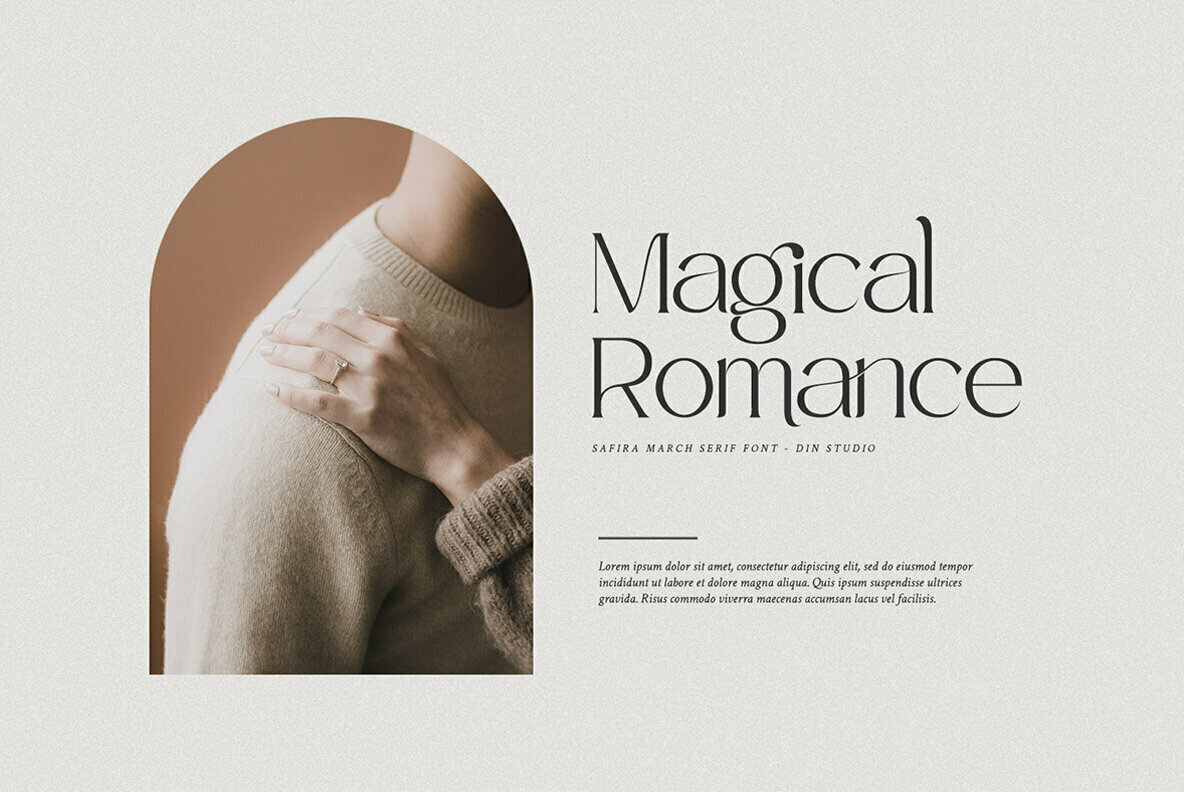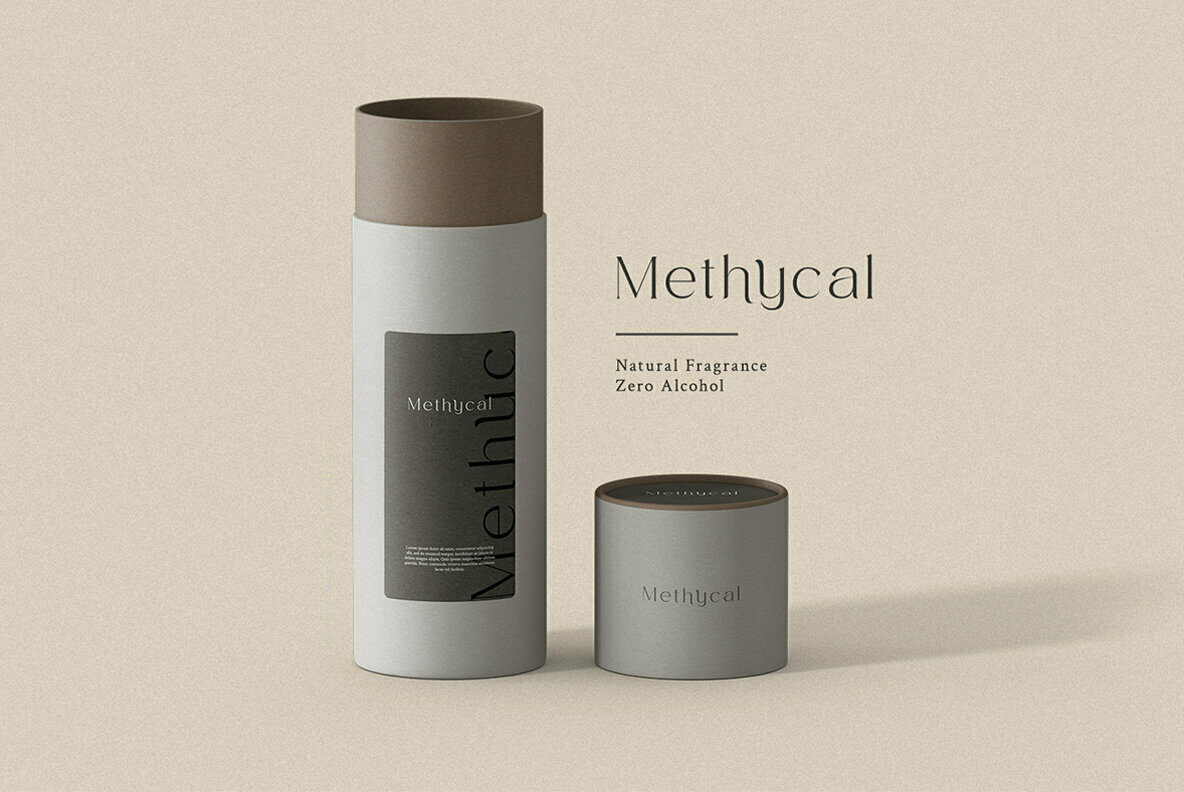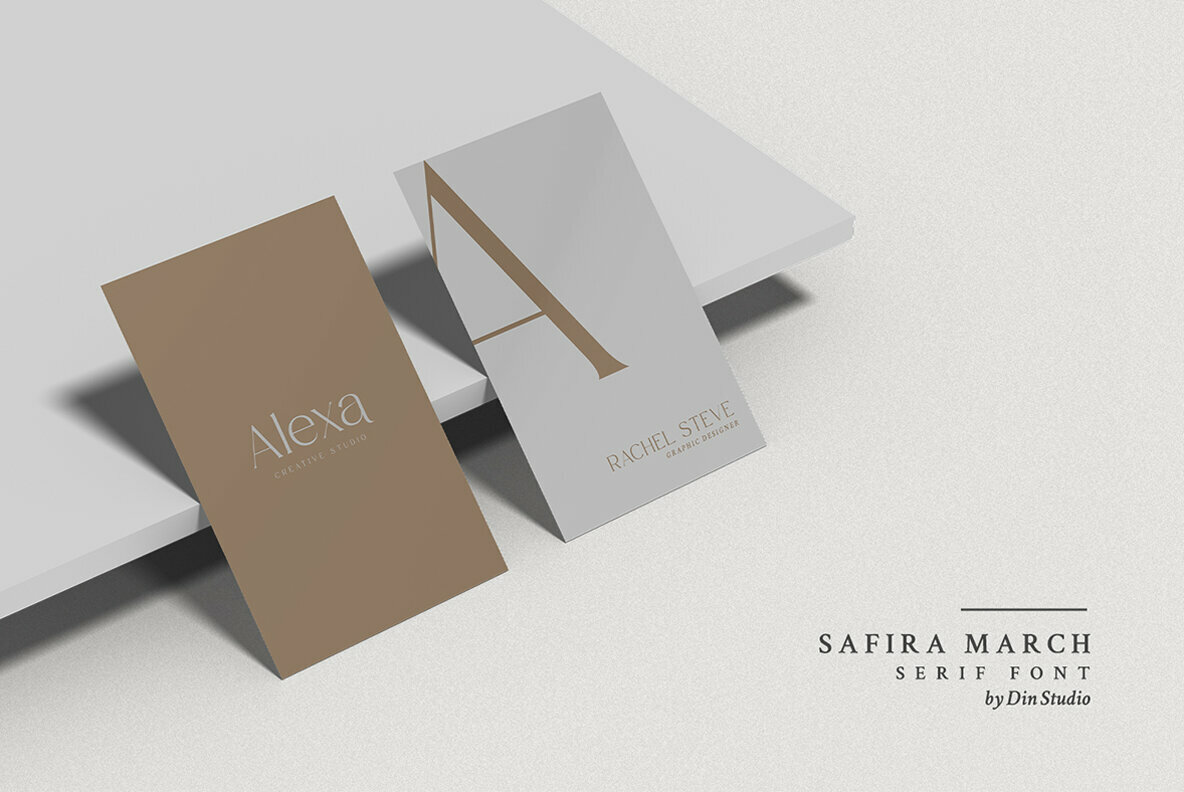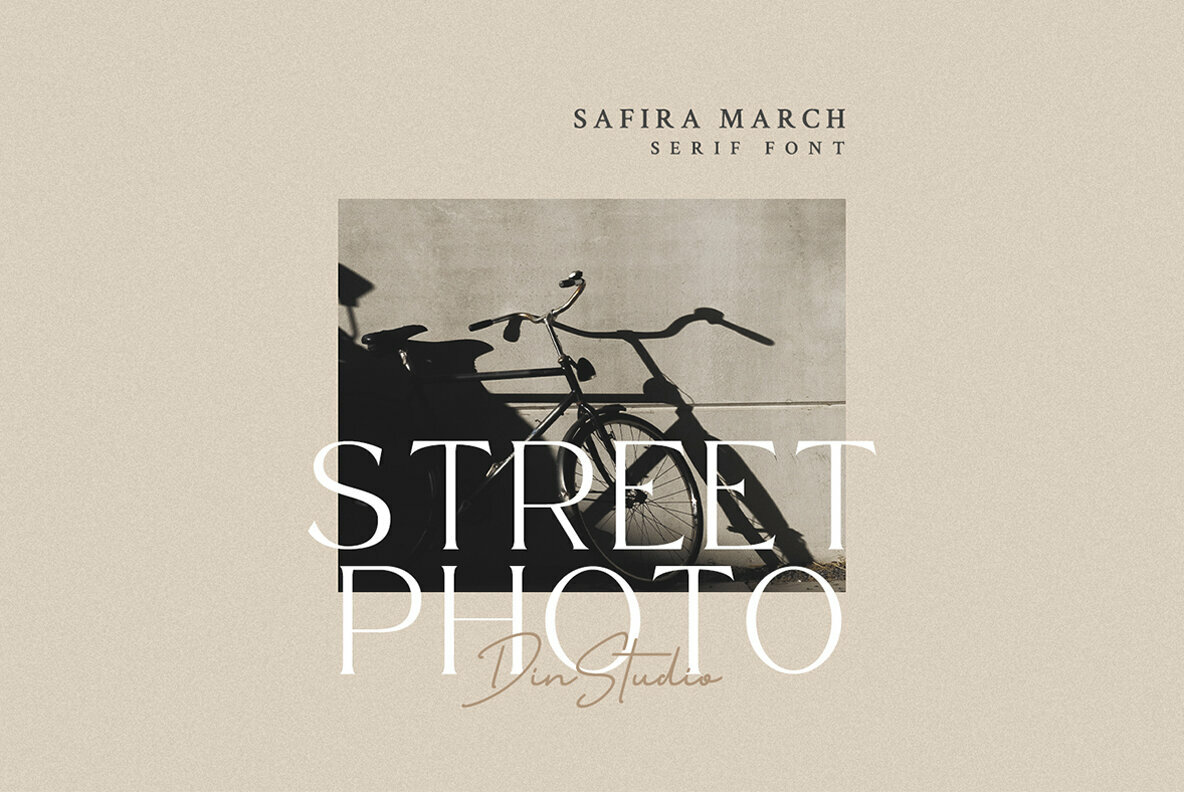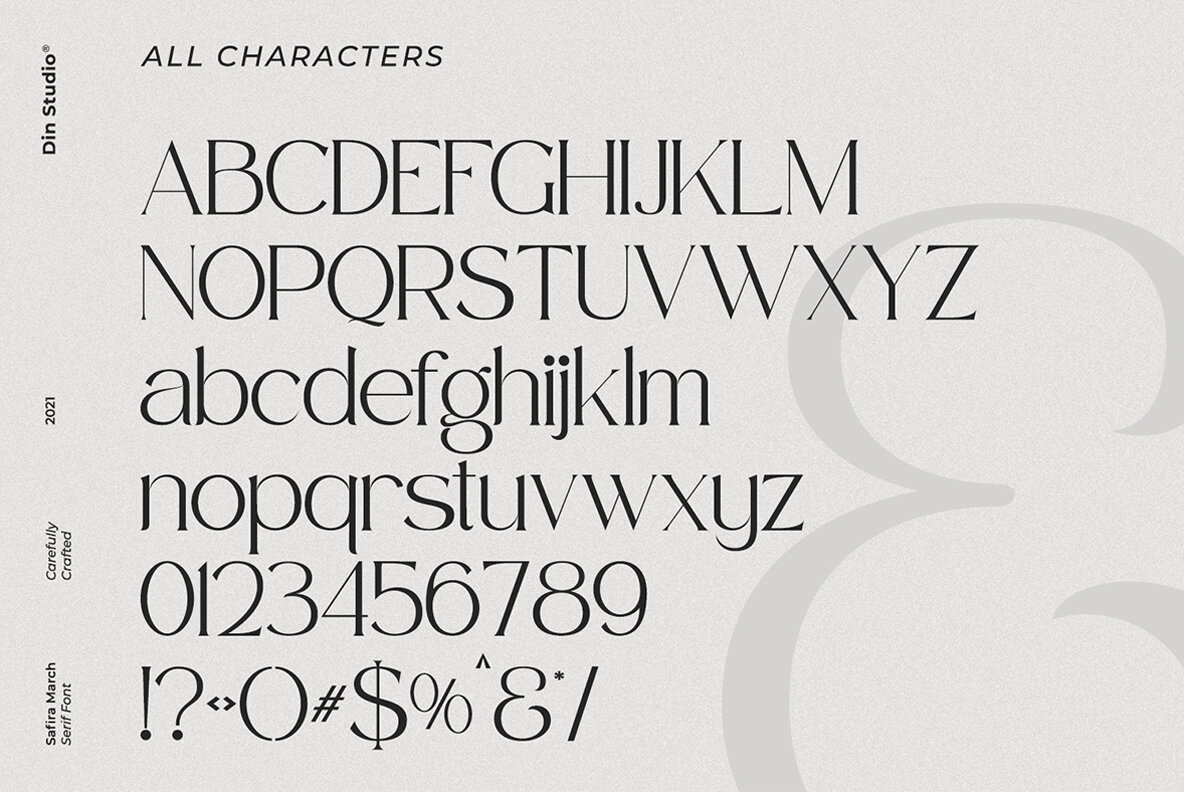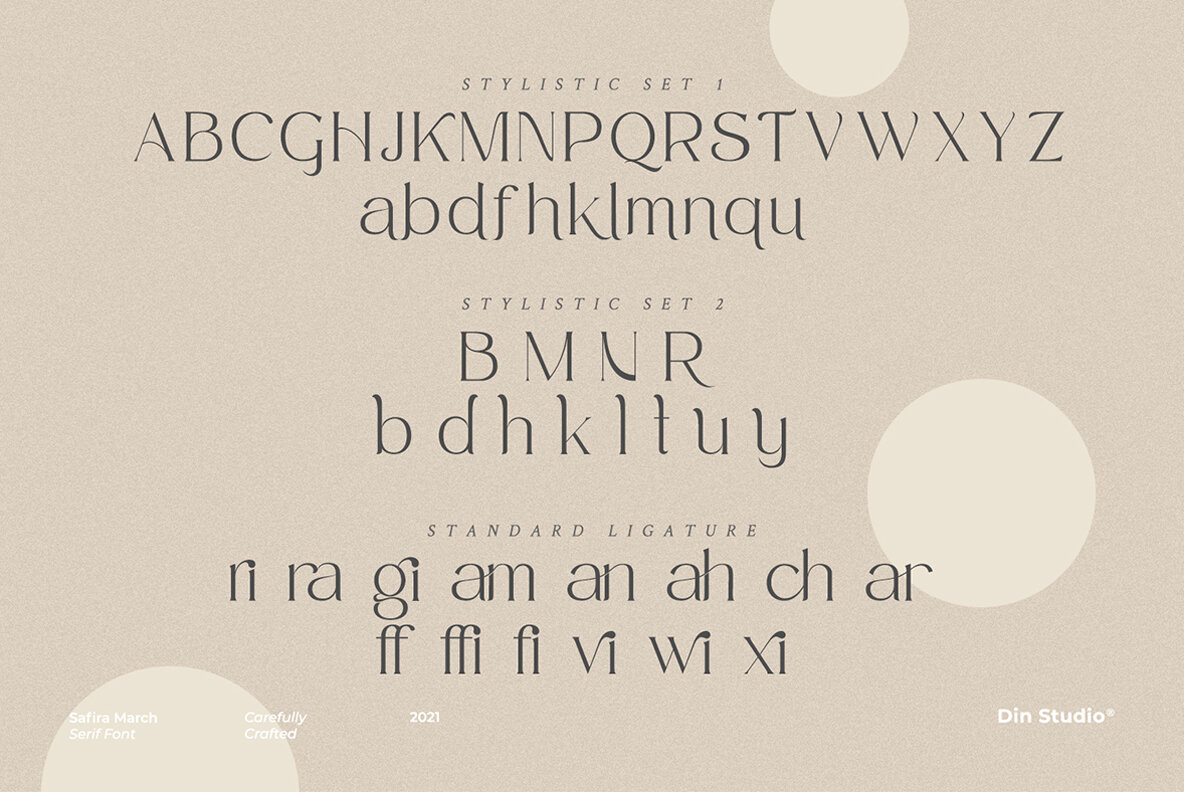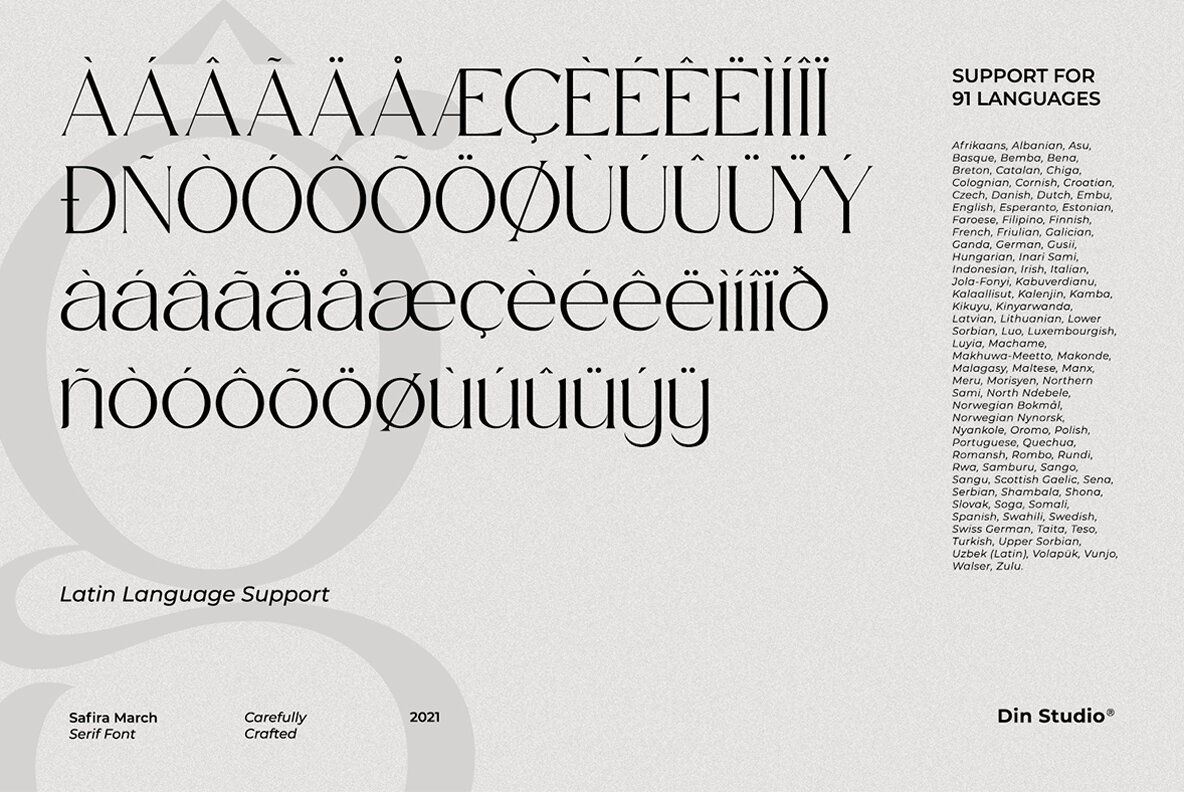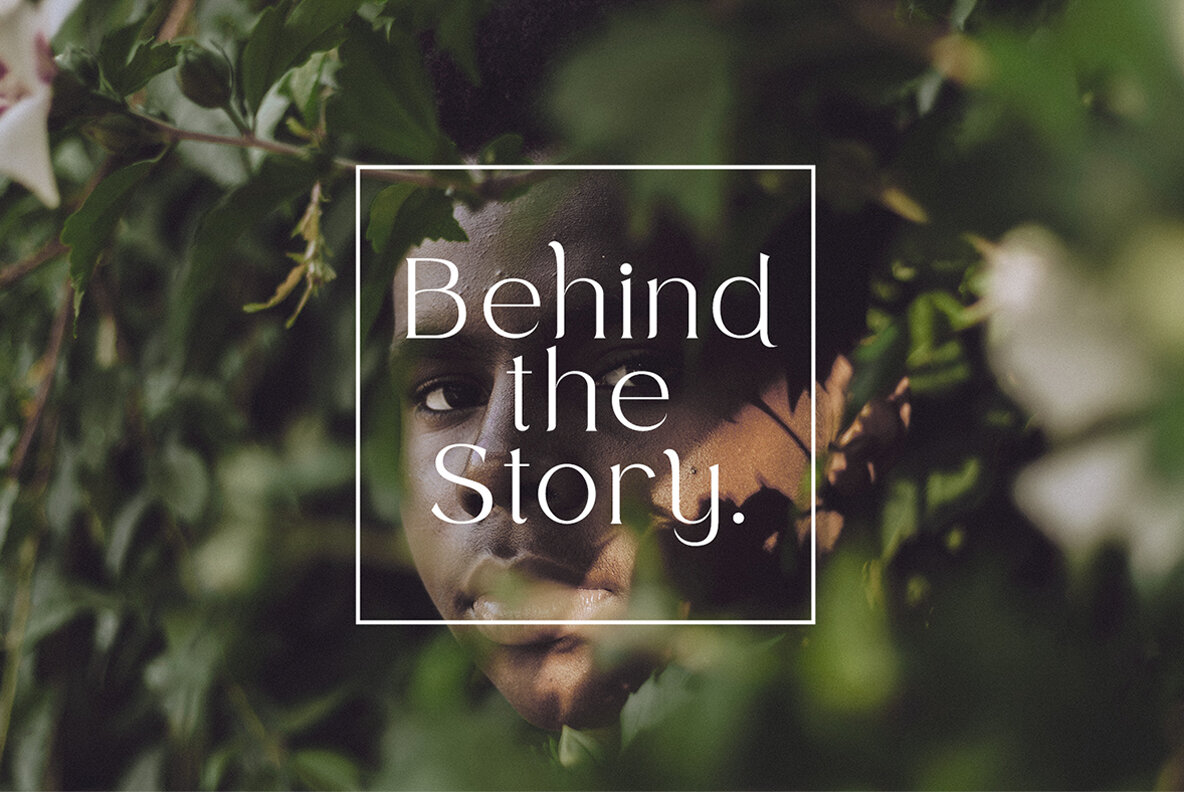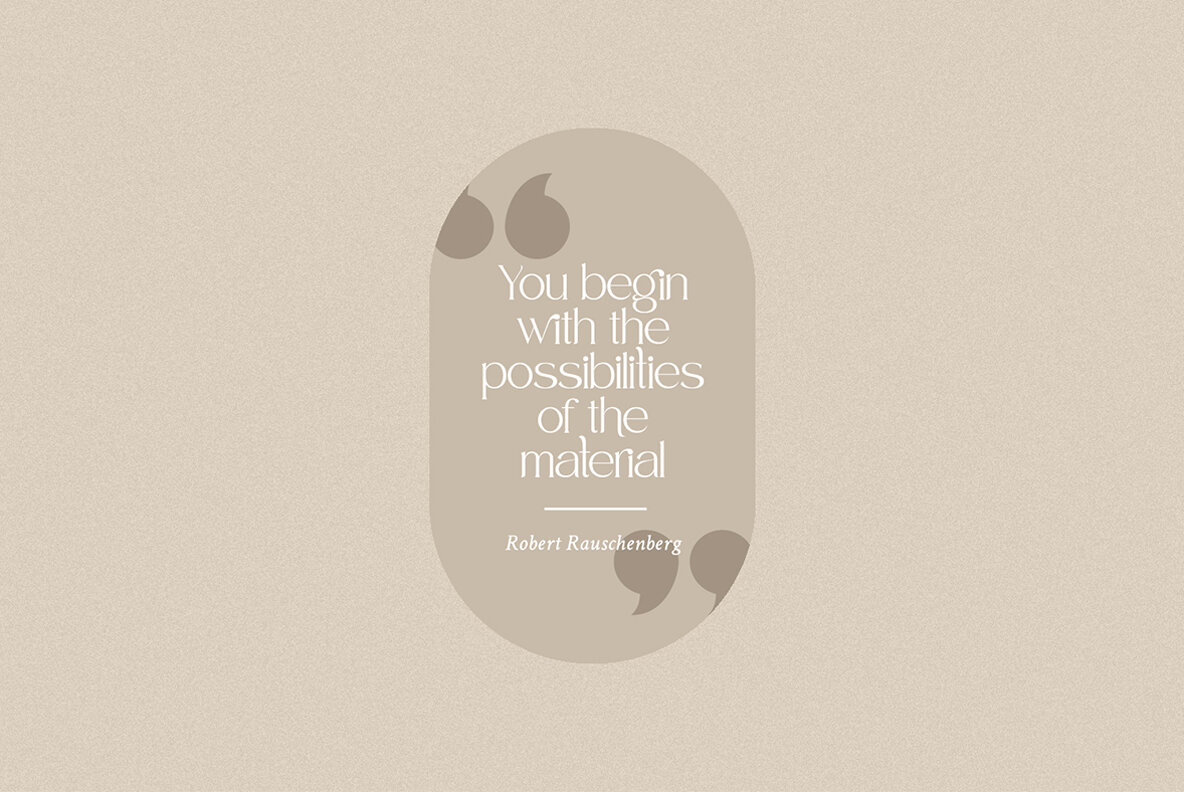
Safira March Font
Safira March
For those looking to create impact with their designs, Safira March offers a sophisticated serif font that melds tropical flair with elegance. This font is ideal for designers aiming to captivate audiences and leave a lasting impression, whether in branding, promotions, or personal projects. Safira March seamlessly integrates style and modernity, ensuring that your work exudes both distinctiveness and charm. Perfectly tailored for an array of applications, Safira March fits effortlessly into headings, logos, business cards, and much more. Its dynamic versatility extends to printed materials like quotes, invitations, cards, and packaging. Moreover, its adaptability makes it an excellent choice for enhancing website or social media branding, bringing your digital presence to life. Features:Safira March: A Bold Serif for Modern Projects